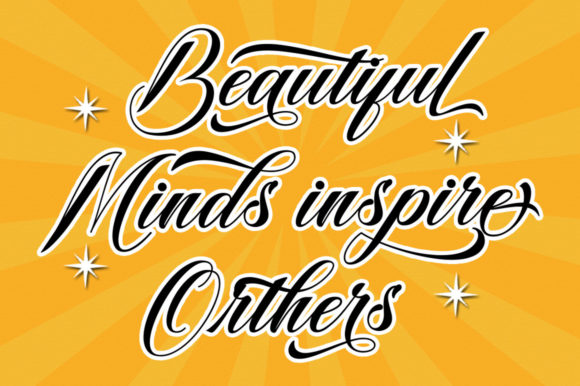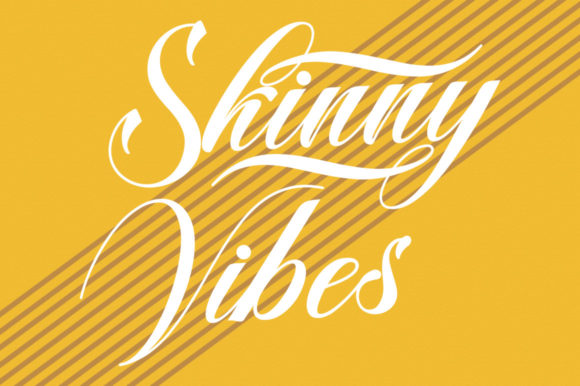
Caroline Font
db-ku.com - Script & Handwritten -- Caroline is an enchanting handwritten font. This versatile script font has a wide spectrum of applications ranging from greeting cards to headlines and is guaranteed to add a romantic feel to your next project.